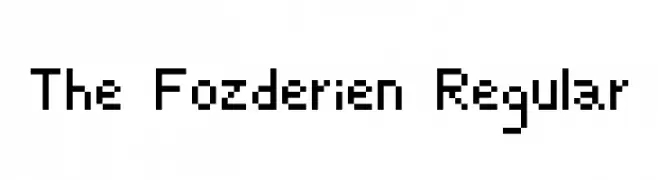
( Fonts by Bri'n St´ven Alborn'z )
A jagged, horror-inspired font with a distressed, edgy appearance.
( Fonts by Luis Jaramillo )
A bold, distressed font with a grunge aesthetic and rugged texture.
A horror-themed dingbat set with death and skeleton motifs.
A pixelated, blocky font with a retro digital aesthetic.
( Fonts by LJ Design Studios )
A bold, geometric font with a distressed, vintage texture.
( Fonts by Eric Kurniawan )
A vintage-style font with distressed, decorative characters.
A bold, jagged, and decorative font with a gothic, horror-inspired style.
A modern, rounded font with a playful and approachable style.
( Fonts by Chris Vile )
A bold, distressed font with a rugged, vintage appearance.